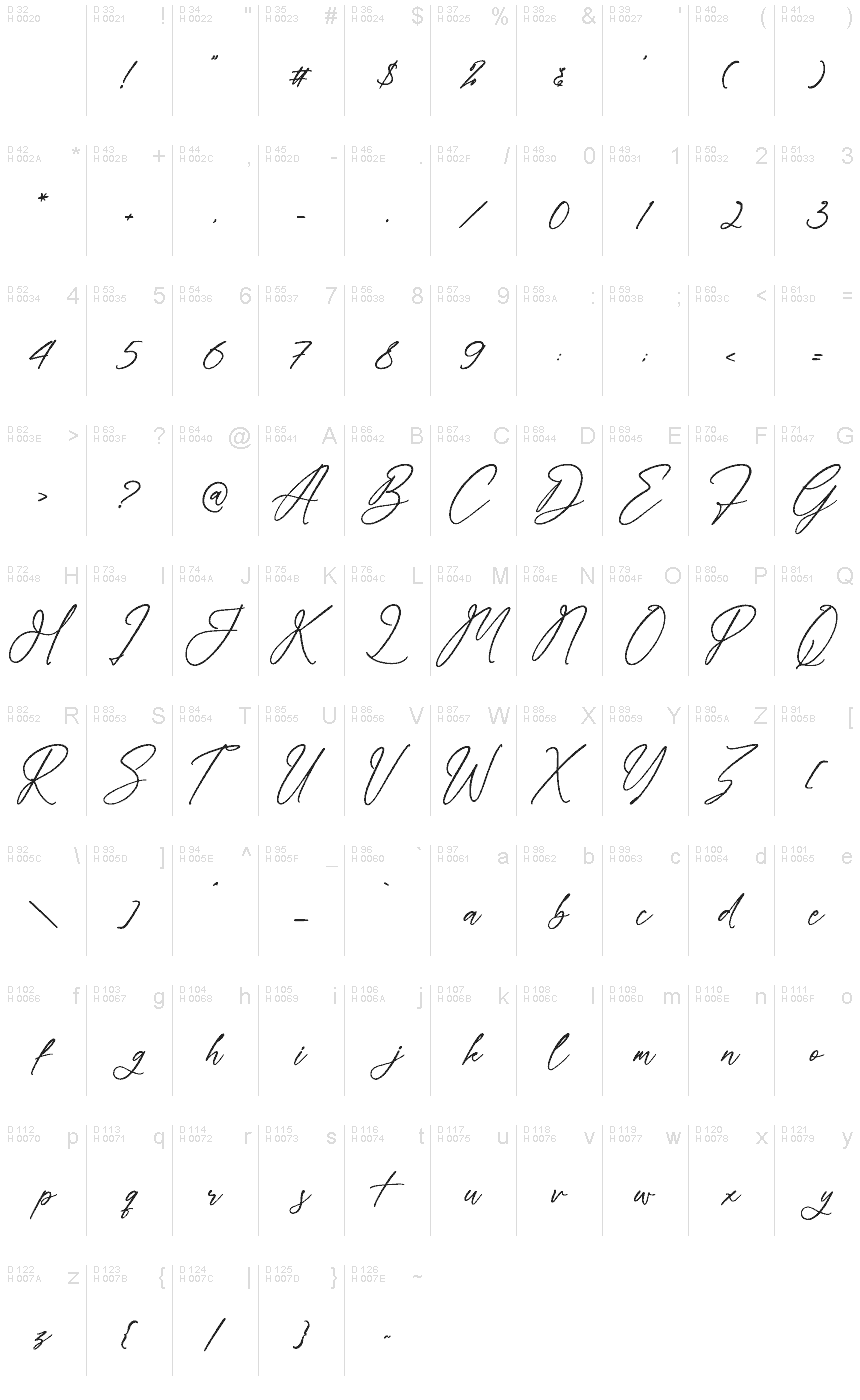
Coldwell Bridges
Coldwell Bridges font by Letterena Studios is a free handwritten font that combines elegance and smooth flow into a sophisticated design. This expressive light typeface explores the traditional side of the cursive script along an official yet very friendly business-like character.